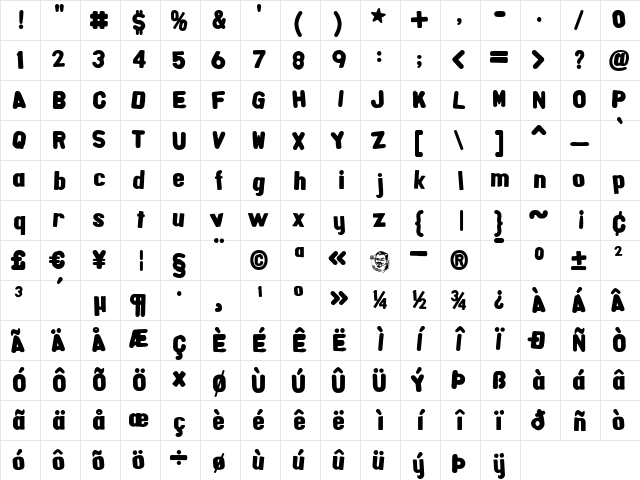
AlphaFridgeMagnets Regular
Design Context for AlphaFridgeMagnets Typeface
AlphaFridgeMagnets is a composed and adaptable typeface that performs quietly and consistently across a wide range of design contexts.
Pro Tip: Pair AlphaFridgeMagnets with a font of contrasting weight or personality to build a more expressive typographic hierarchy.